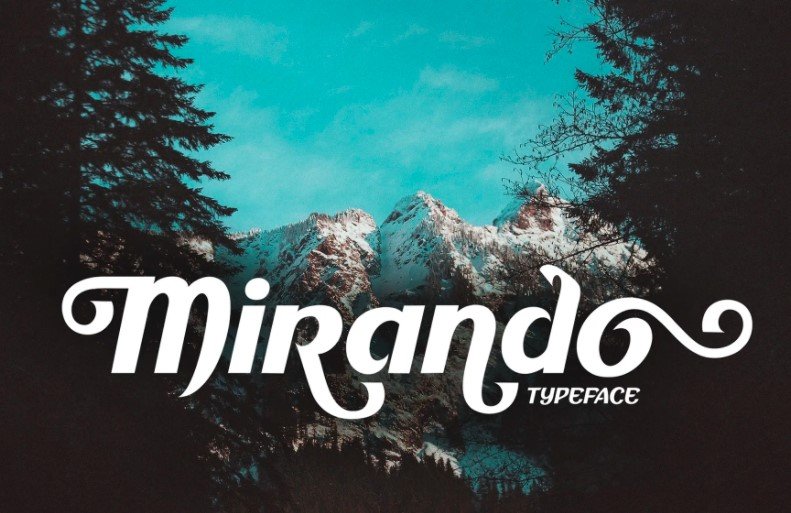
This display typeface can easily usable for all works. And, it looks awesome in large display projects. You can easily utilize it as pairing with the
We are sharing the best pairing typeface with you that is Mirando Display Font which lies in the best fonts category. It was designed with the best designing layouts and delivered you with the best features of designing.
This display typeface can easily usable for all works. And, it looks awesome in large display projects. You can easily utilize it as pairing with the combination of athelas font.